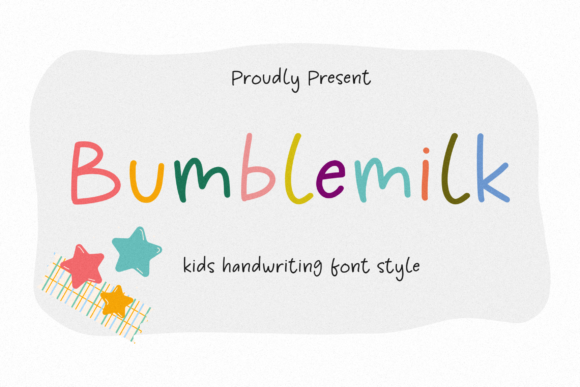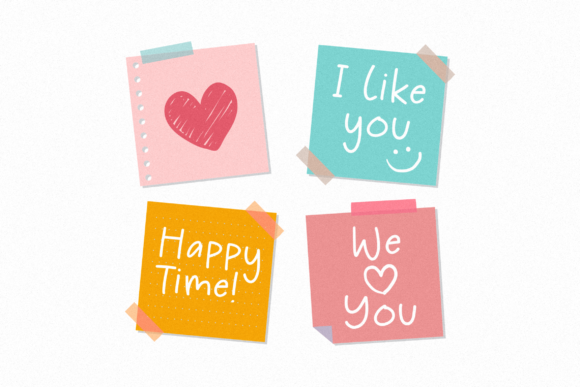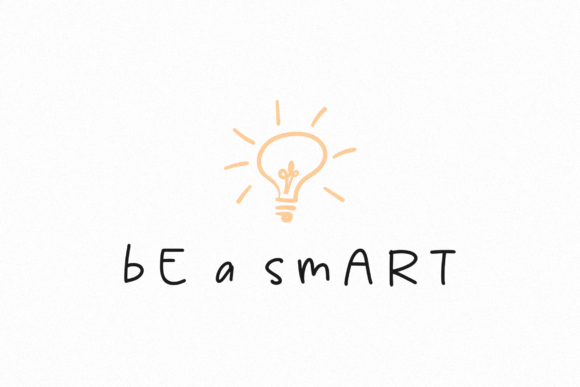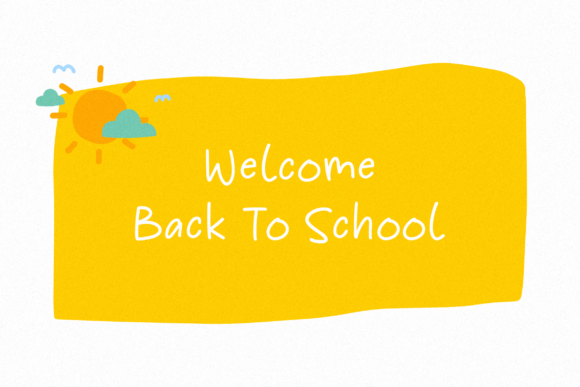
Bumblemilk Font: A Cute Kids Handwriting Font for Playful Designs!
About the Bumblemilk Font
Crafted with precision, the Bumblemilk Font is ready to bring your ideas to life. Bumblemilk is a kid’s handwriting font style. Bumblemilk is perfect for product packaging, branding project, magazine, social media, weddings, or just used to express words above the background.
Bumblemilk’s playful, slightly uneven character makes it ideal for children’s books, greeting cards, and projects needing a friendly, approachable feel. It works well in headlines, short bursts of text on packaging, or social media graphics. However, its informal nature makes it unsuitable for large blocks of body text or applications requiring high readability, such as websites or UI elements.
Pairing Bumblemilk with a clean sans-serif like Open Sans for body text provides a strong contrast and enhances readability. For a more sophisticated look, consider a classic serif like Garamond for supporting elements, balancing the handwritten informality with a touch of elegance.
The font’s overall personality is undeniably cheerful and youthful. It’s best suited for brands targeting children, families, or projects emphasizing fun and creativity. Avoid using it where professionalism or a serious tone is paramount.
Bumblemilk Font Usage Examples
Bumblemilk Font Example